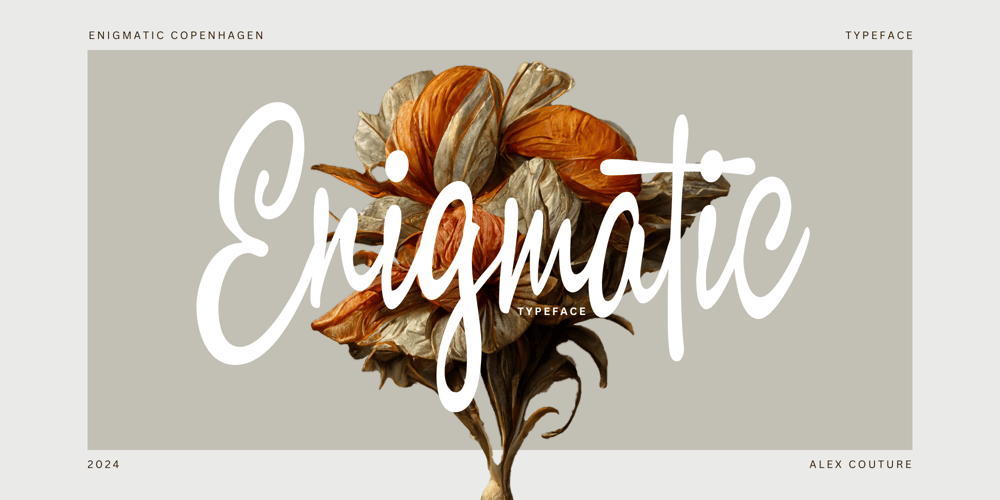
Enigmatic Copenhagen Font Family was designed by Alex Couture, Hermansyah and published by Alex Couture. Enigmatic Copenhagen contains 2 styles and family package options. Enigmatic Copenhagen is a contemporary casual script font that seamlessly blends modern design with a touch of mystery. Its flowing, handcrafted letterforms exude a casual yet refined style, making it suitable for a wide range of applications.The font incorporates OpenType features, enhancing its versatility by offering dynamic ligatures and alternate characters. These features contribute to a personalized and expressive typographic experience, allowing users to create distinctive designs with a touch of enigma and sophistication. Whether used in branding, invitations, or other creative projects, Enigmatic Copenhagen adds a unique flair to text with its captivating and versatile script.